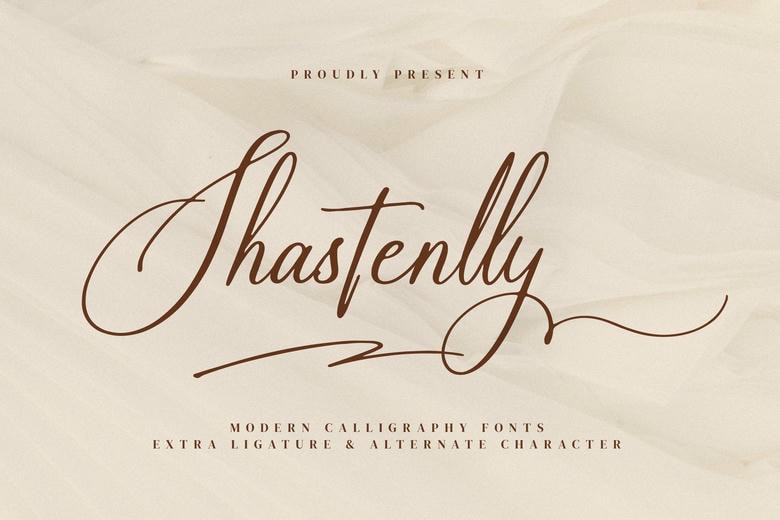
Shastenlly Font
Shastenlly is a stylish and elegant modern calligraphy font. It features smooth, flowing lines and a creative, handwritten look, making it perfect for invitations, greeting cards, and logos. Its beautiful design adds a personal touch to any project.
Shastenlly Calligraphy Script Font